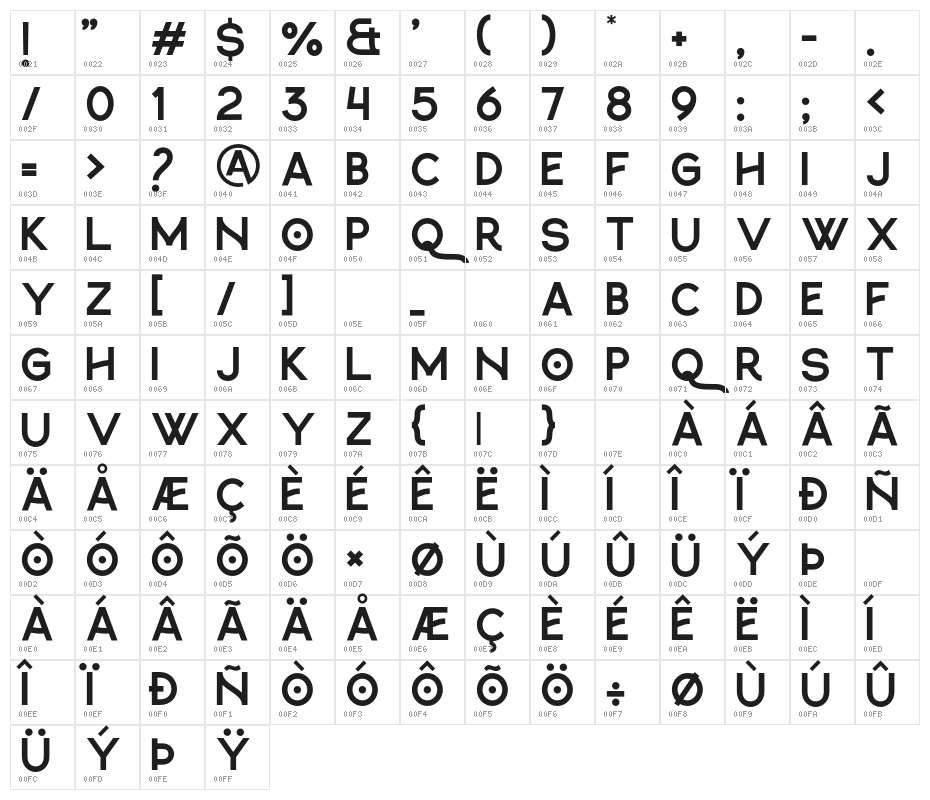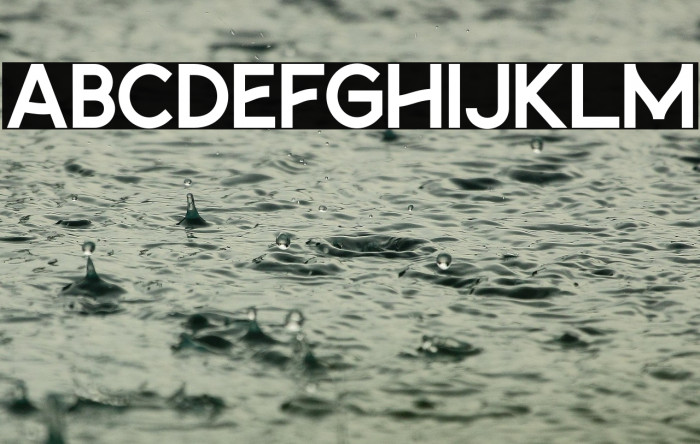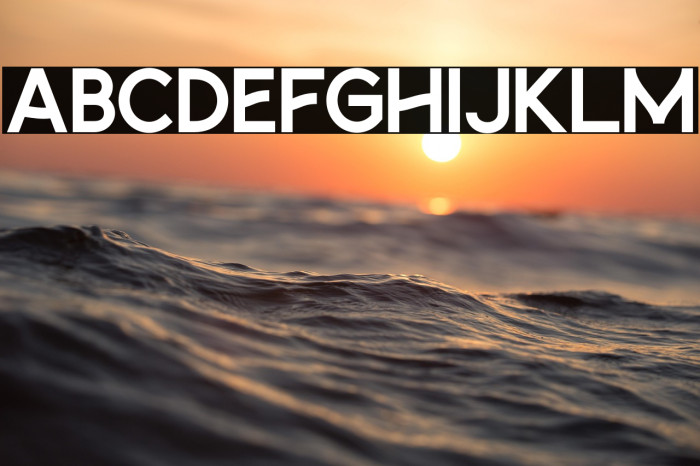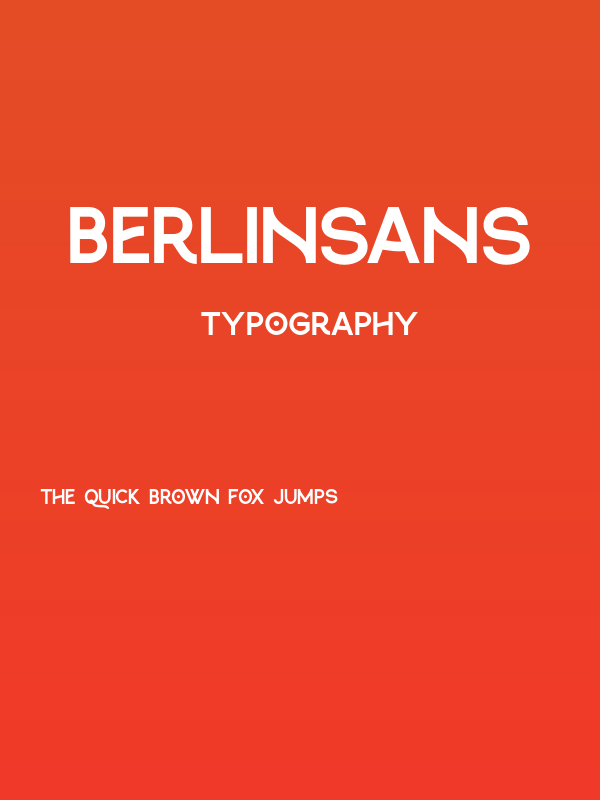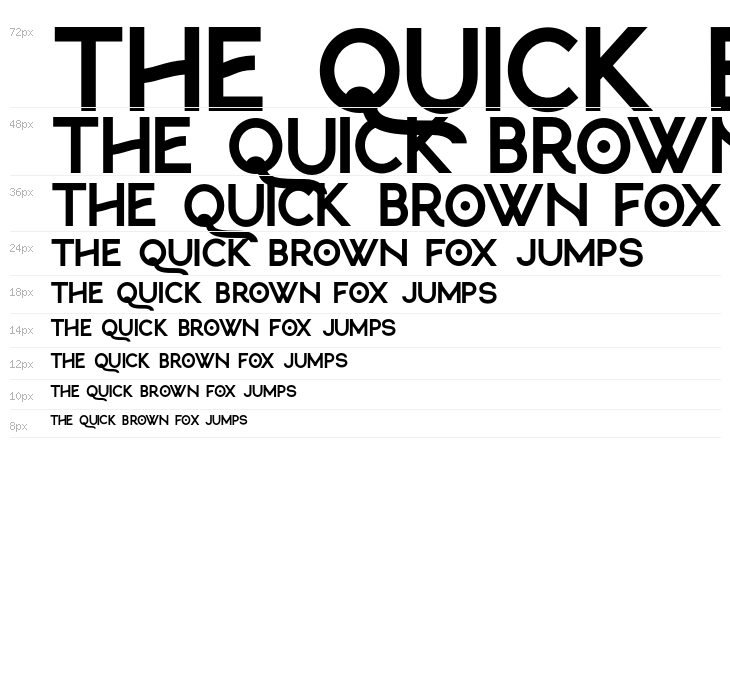
berlinsans Font
berlinsans Description
This font exhibits a bold and geometric style, characterized by clean lines and a modern aesthetic. The uppercase letters are uniform in height, with a consistent stroke width that gives a sense of stability and strength. The lowercase letters maintain a similar geometric structure, ensuring readability and cohesion across different text sizes. The numerals are equally bold, with a design that complements the alphabetic characters. Special characters are distinct and maintain the overall style, making them suitable for various design contexts. The font's simplicity and clarity make it versatile for both digital and print media.